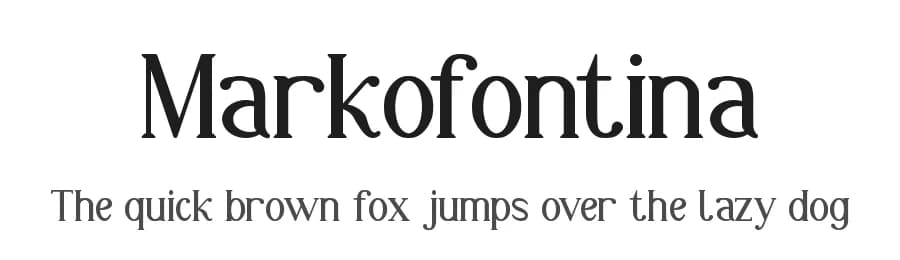
About Markofontina Font
Markofontina Font is a versatile serif font that works for both headings and body text. Pair it with a contrasting sans-serif or slab serif font to add visual interest and a clear distinction between titles and body copy.
Markofontina Font
by Vlad Viperov